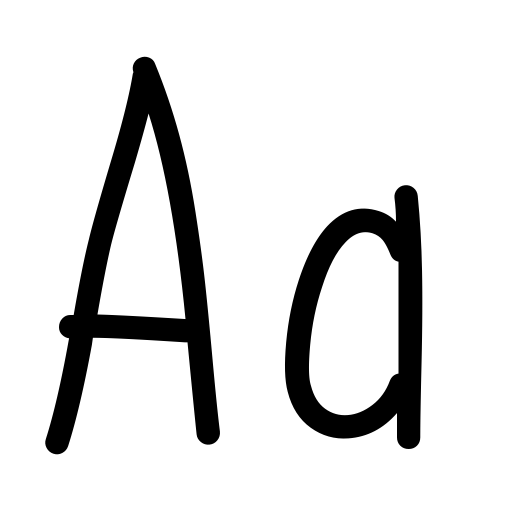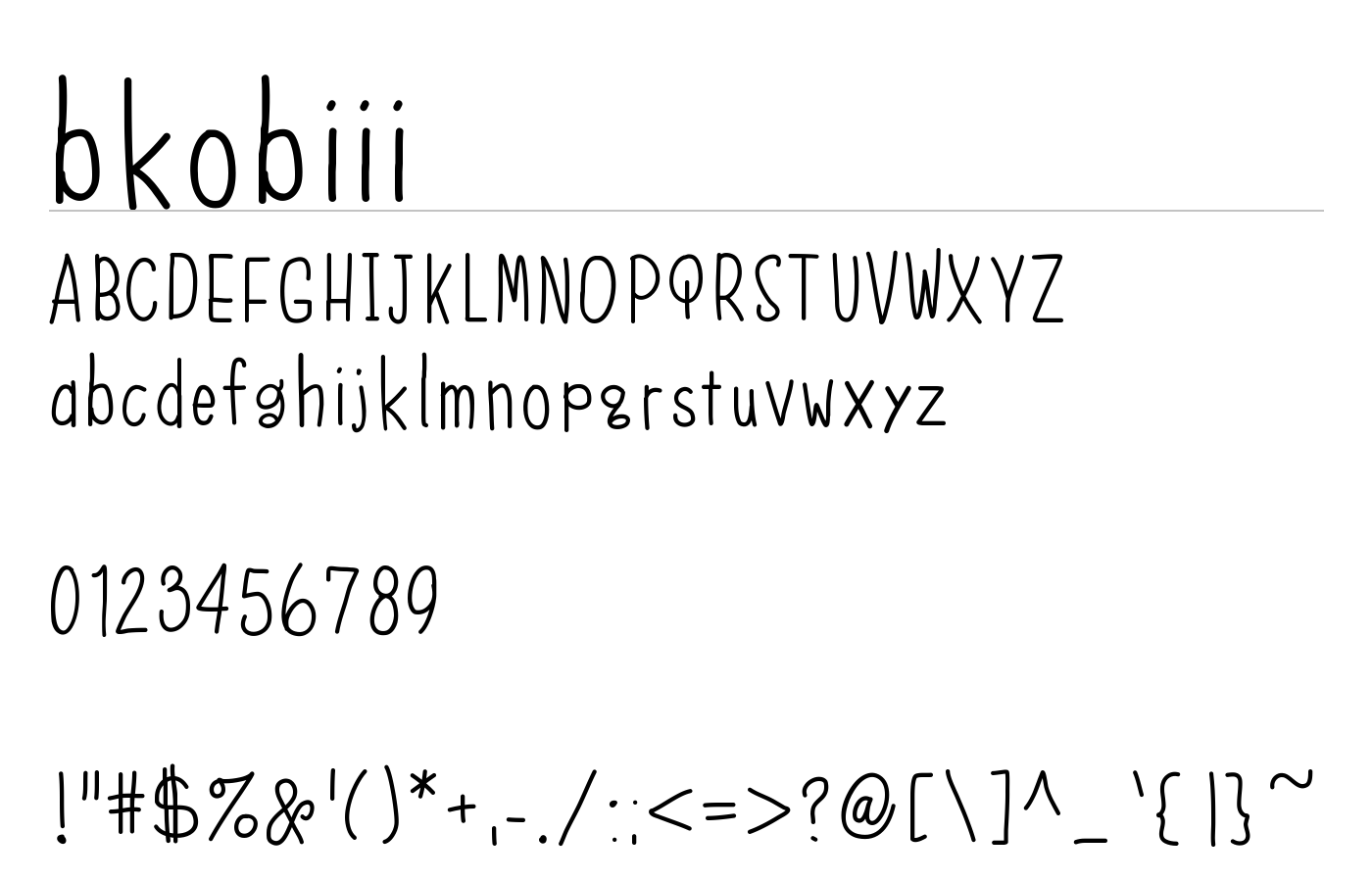
Bkobiii is a tall, narrow sans serif font with a playful, hand-drawn feel that combines a casual, approachable style with clean, simple lines. Its light weight and open letter spacing make it easy to read in informal settings, perfect for fun, creative projects, children’s books, or quirky branding. This font adds a friendly, whimsical touch while maintaining clarity and charm.
bkobiii Font
About bkobiii Font